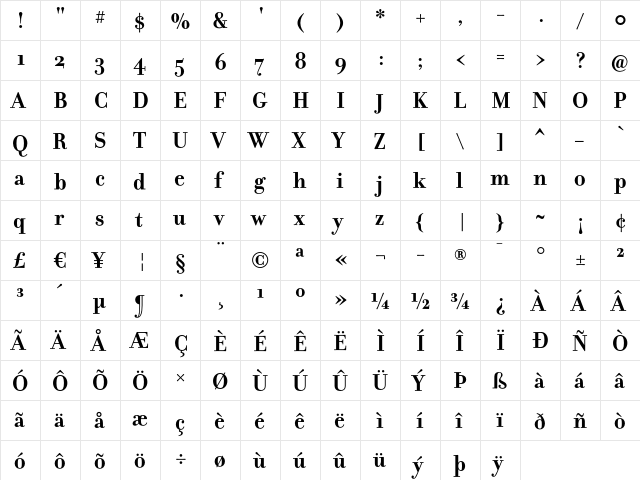
Filosofia OT Bold
| Foundry | (C) Emigre Inc., Designed by Zuzana Licko |
| Designer | Zuzana Licko |
Design Context for Filosofia OT Typeface
Filosofia OT offers clean, dependable letterforms without strong stylistic allegiance, making it a practical choice for designers who need flexibility. The heavy weight commands attention and anchors typographic hierarchies.